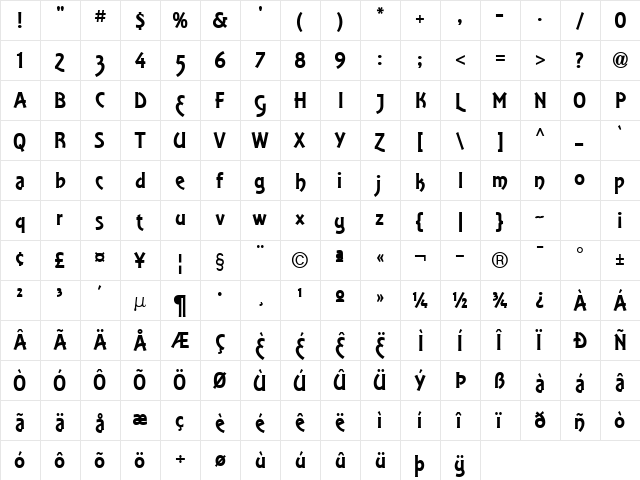
Equinox ICG Alt
Design Context for Equinox ICG Typeface
Equinox ICG takes a measured approach to typography — its balanced proportions and neutral character make it a reliable workhorse for both digital and print work.